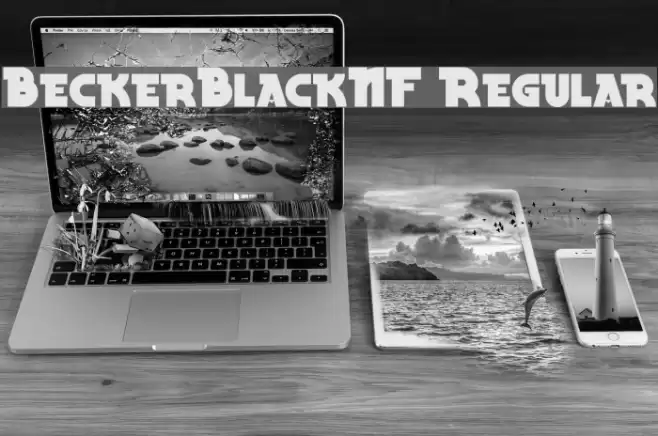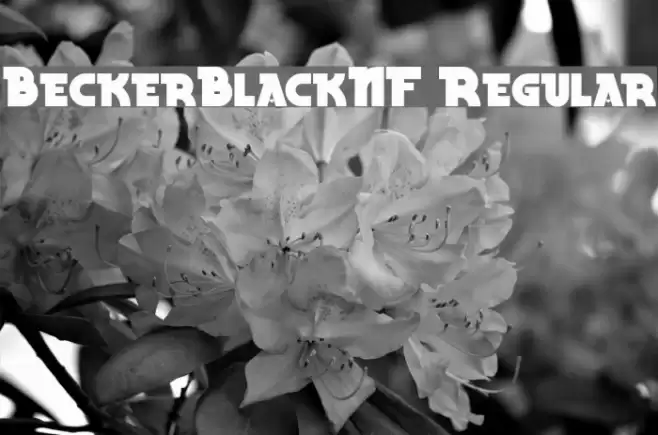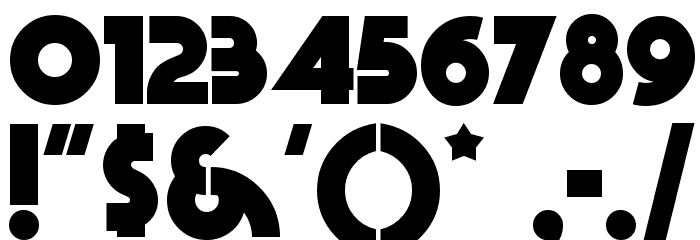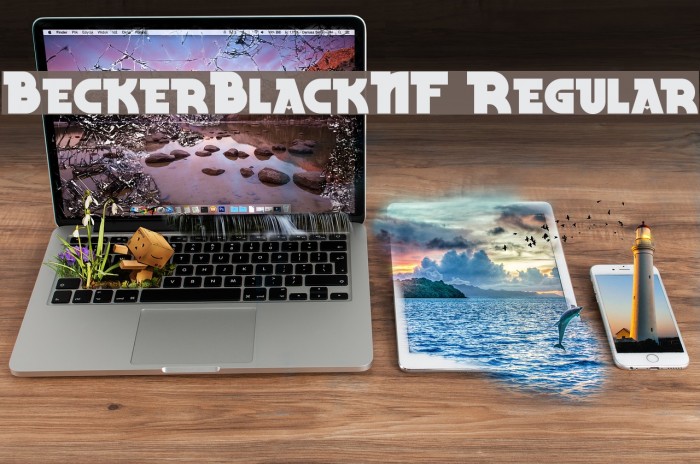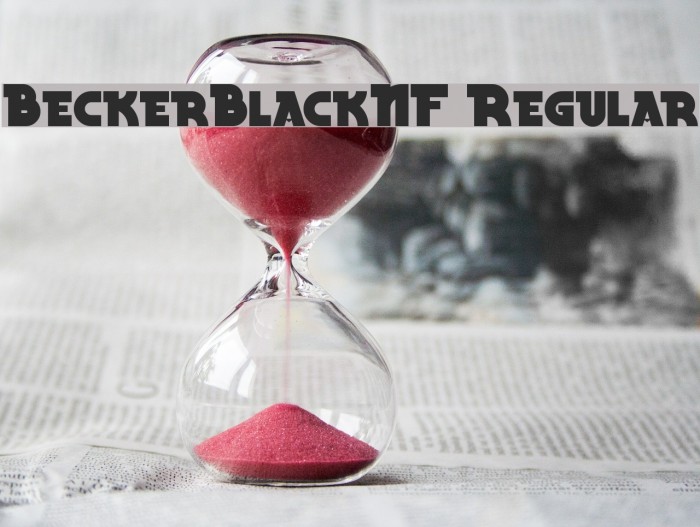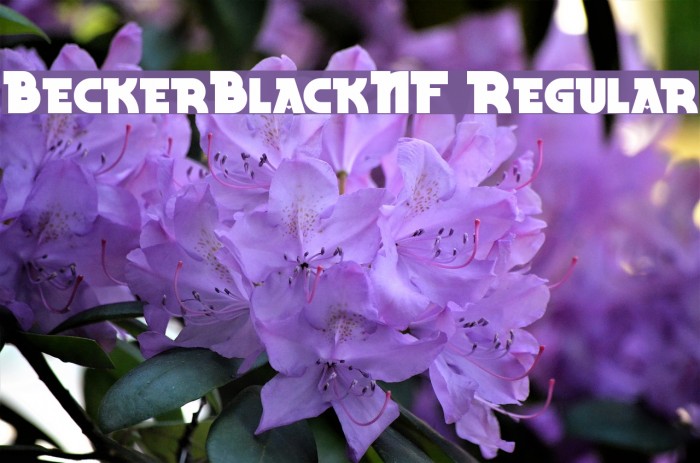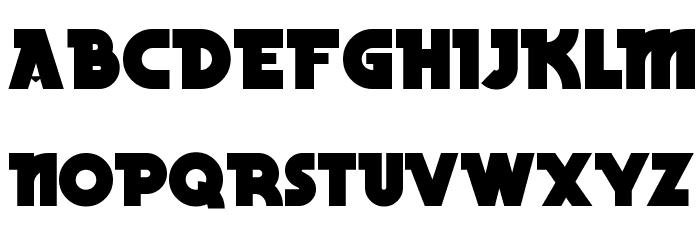
BeckerBlackNF Regular Font
BeckerBlackNF Regular Description
This font features a bold and striking design with thick, block-like characters that convey a sense of strength and impact. The letters are uniformly wide, with minimal contrast between thick and thin strokes, creating a cohesive and powerful visual presence. The geometric shapes and sharp angles give it a modern and assertive appearance, making it ideal for attention-grabbing headlines and titles. The numerals and special characters maintain the same boldness and clarity, ensuring consistency across all text elements.
A bold, geometric font with strong, block-like characters for impactful designs from Decorative fonts.
- Proposed Projects: Ideal for posters, logos, branding, and any project requiring a bold statement.